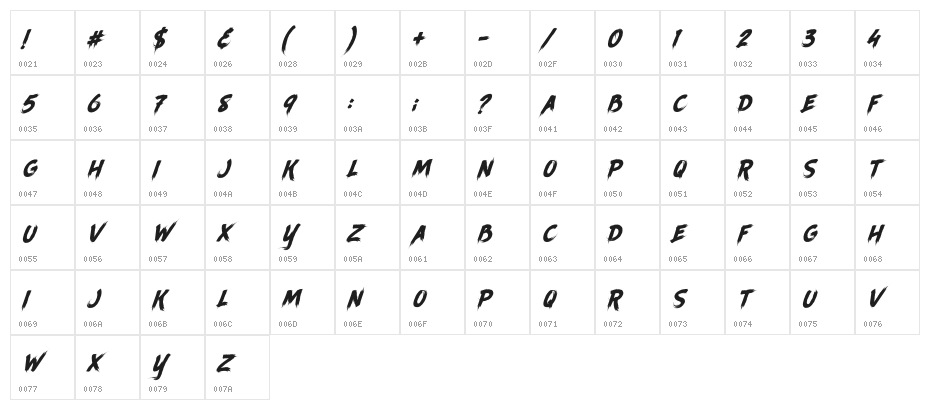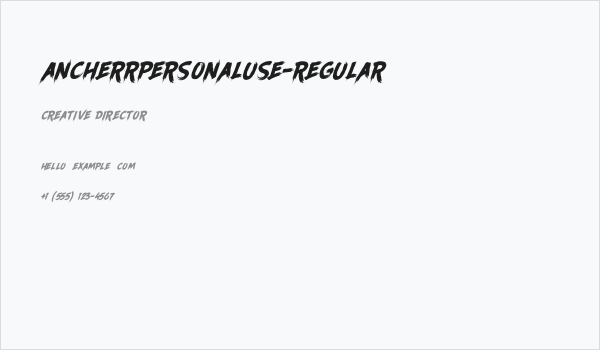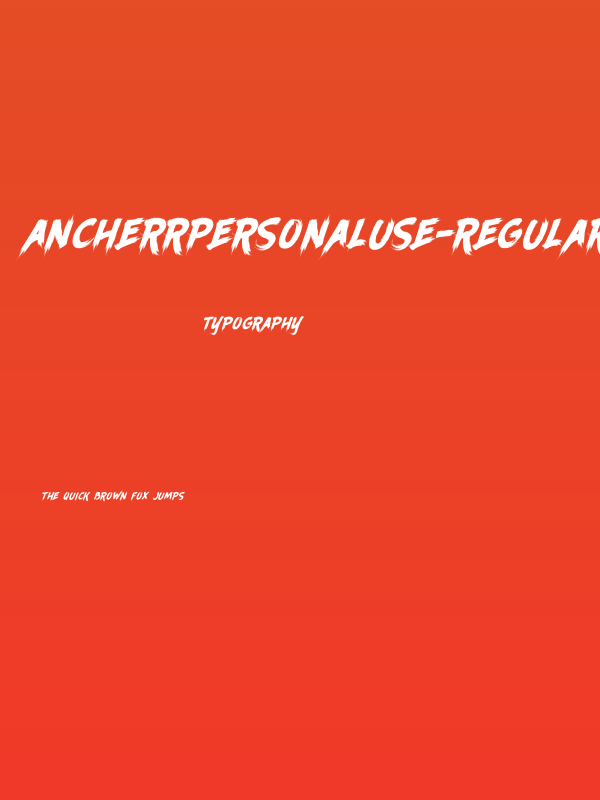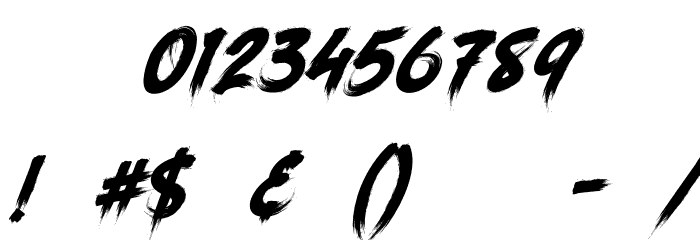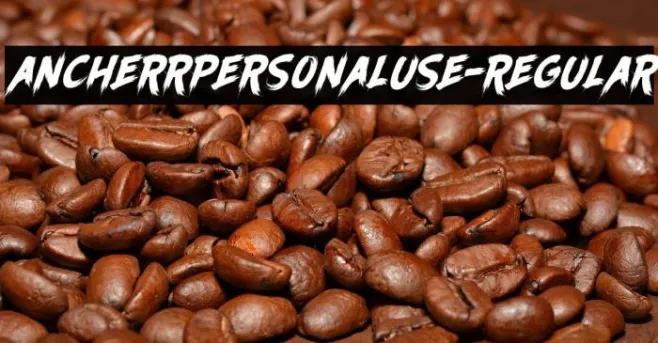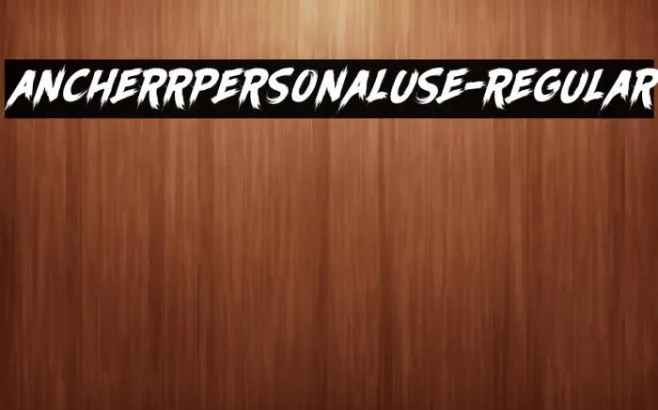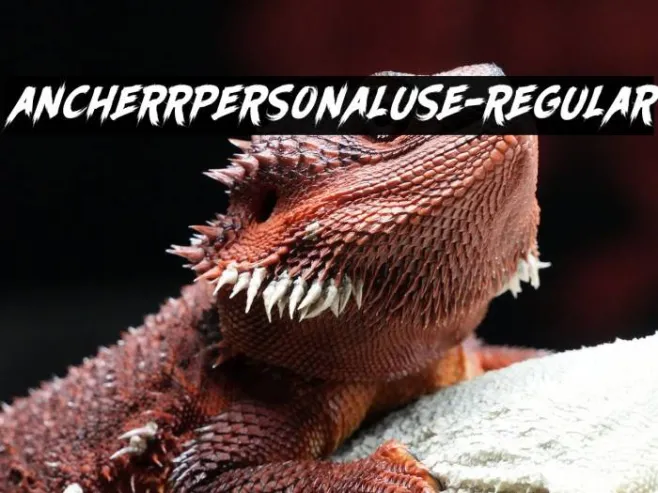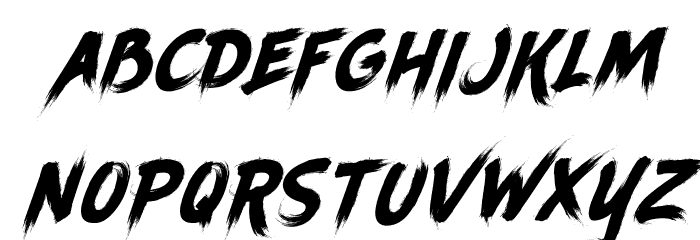
AncherrPersonalUse-Regular Font
AncherrPersonalUse-Regular Description
This font features a bold and dynamic brush style, characterized by its sharp, jagged edges and energetic strokes. The letters have a hand-painted appearance, giving them a raw and expressive look. The uppercase and lowercase letters maintain a consistent style, with a slightly slanted orientation that adds to the sense of movement. The numbers and special characters are equally bold, ensuring a cohesive look across all glyphs. This font's unique style makes it stand out, perfect for projects that require a strong visual impact.